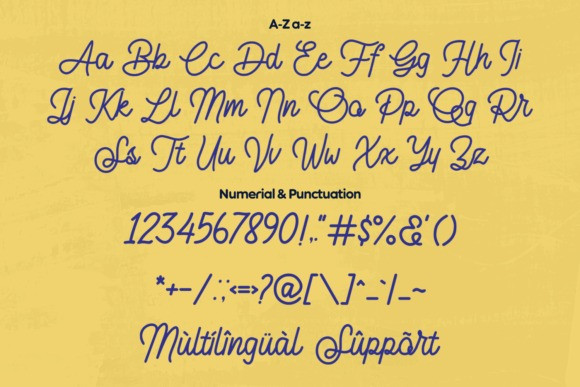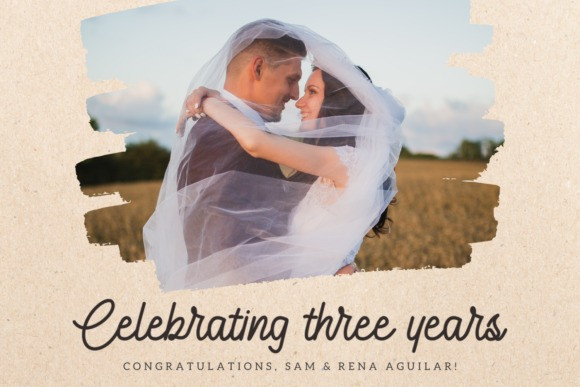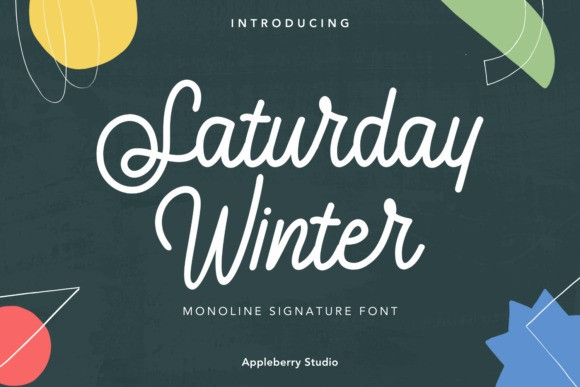
Saturday Winter Font
Saturday Winter Script Font is a monoline signature font with an elegant style. It has good readability and is perfect for logos, invitations, weddings, signatures, Branding, clothing, headline, and much more!